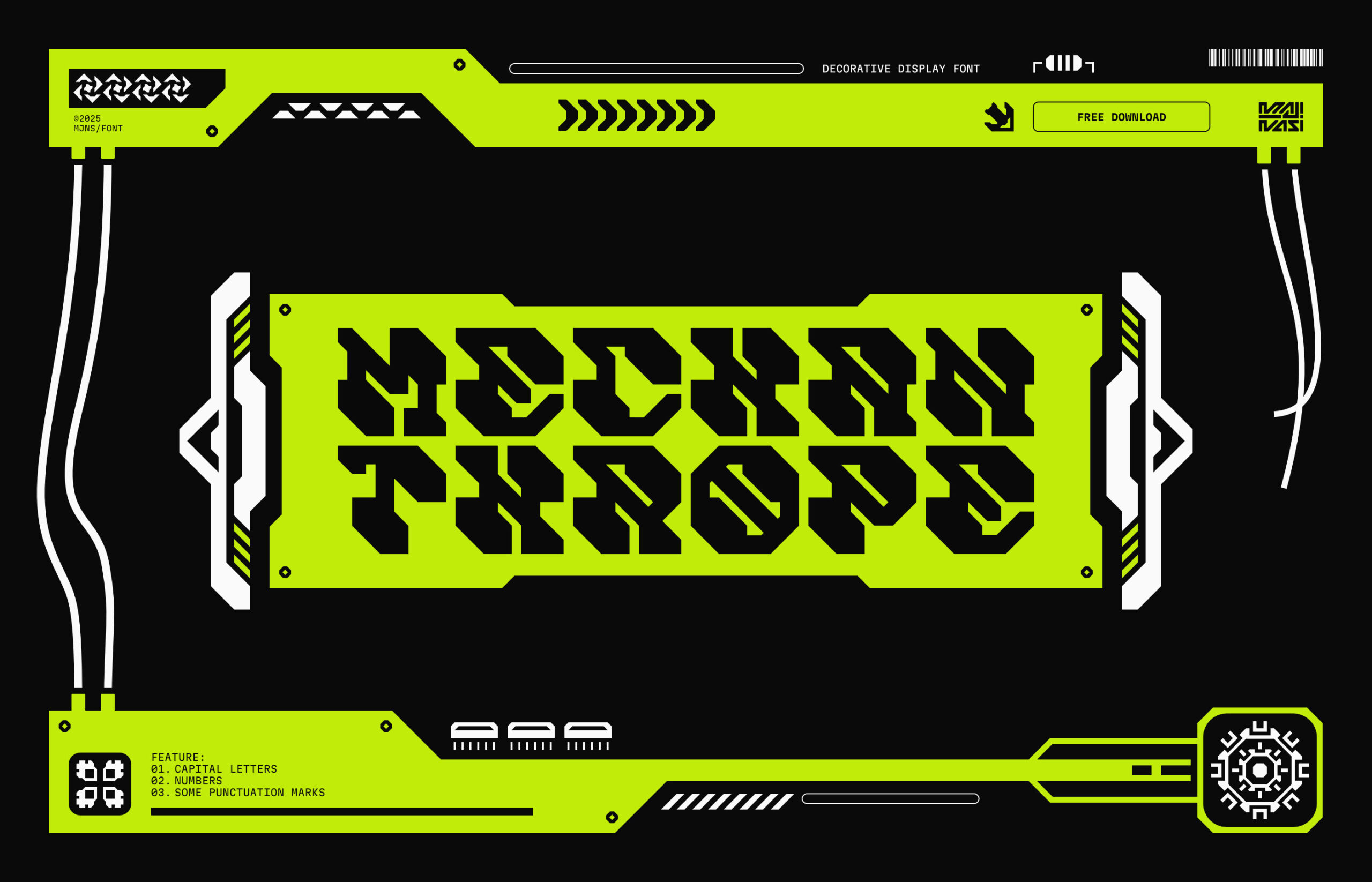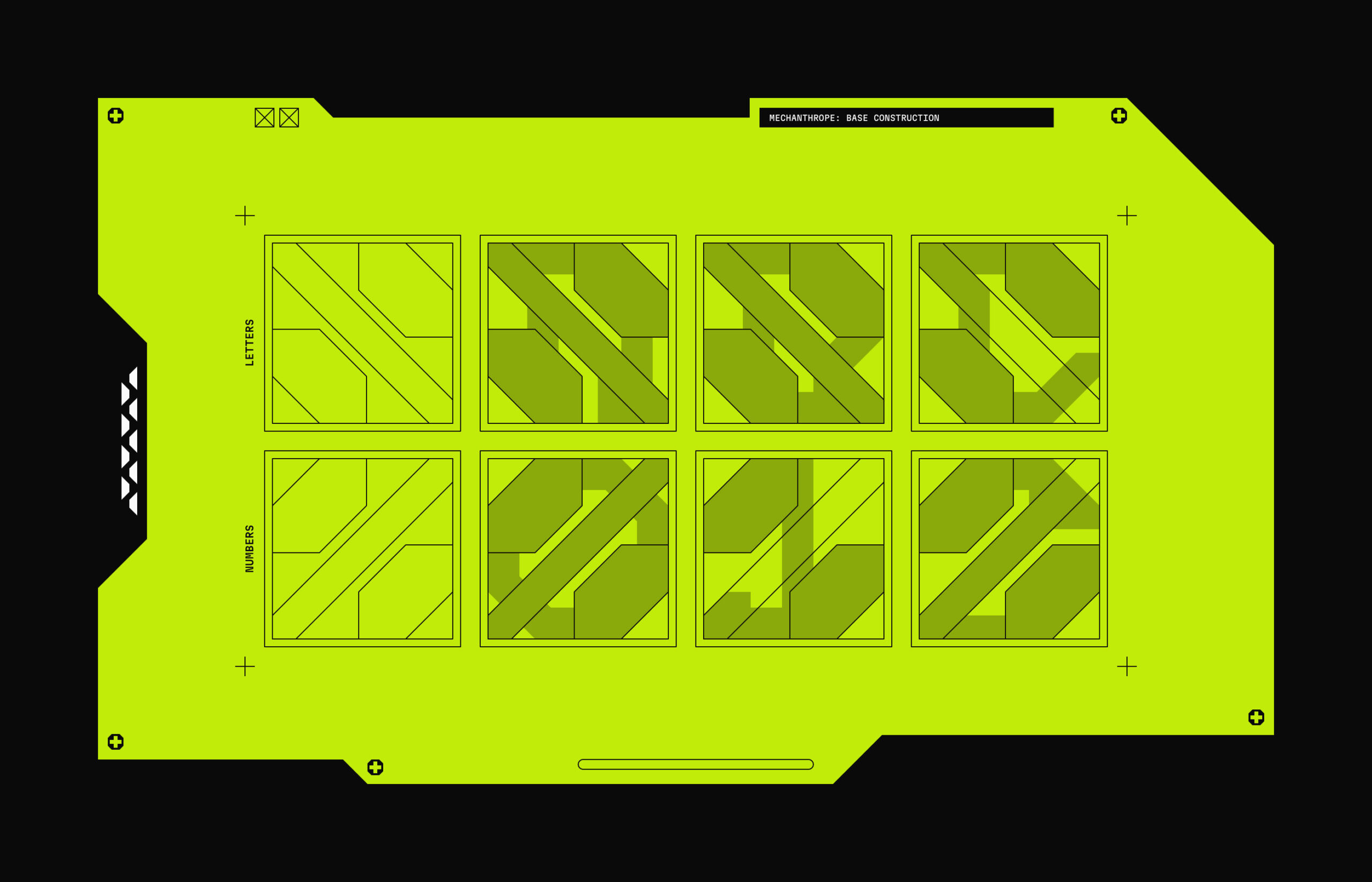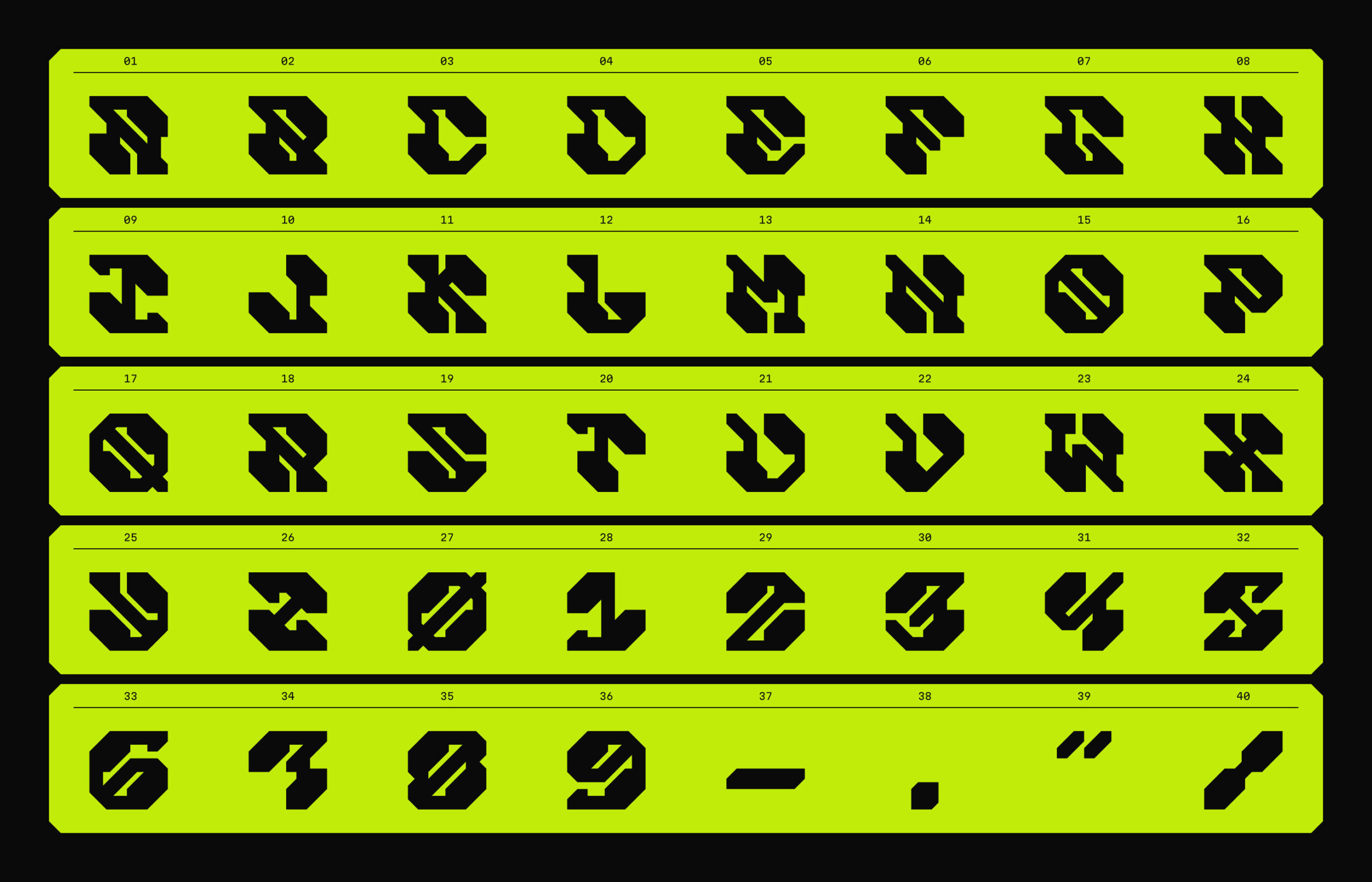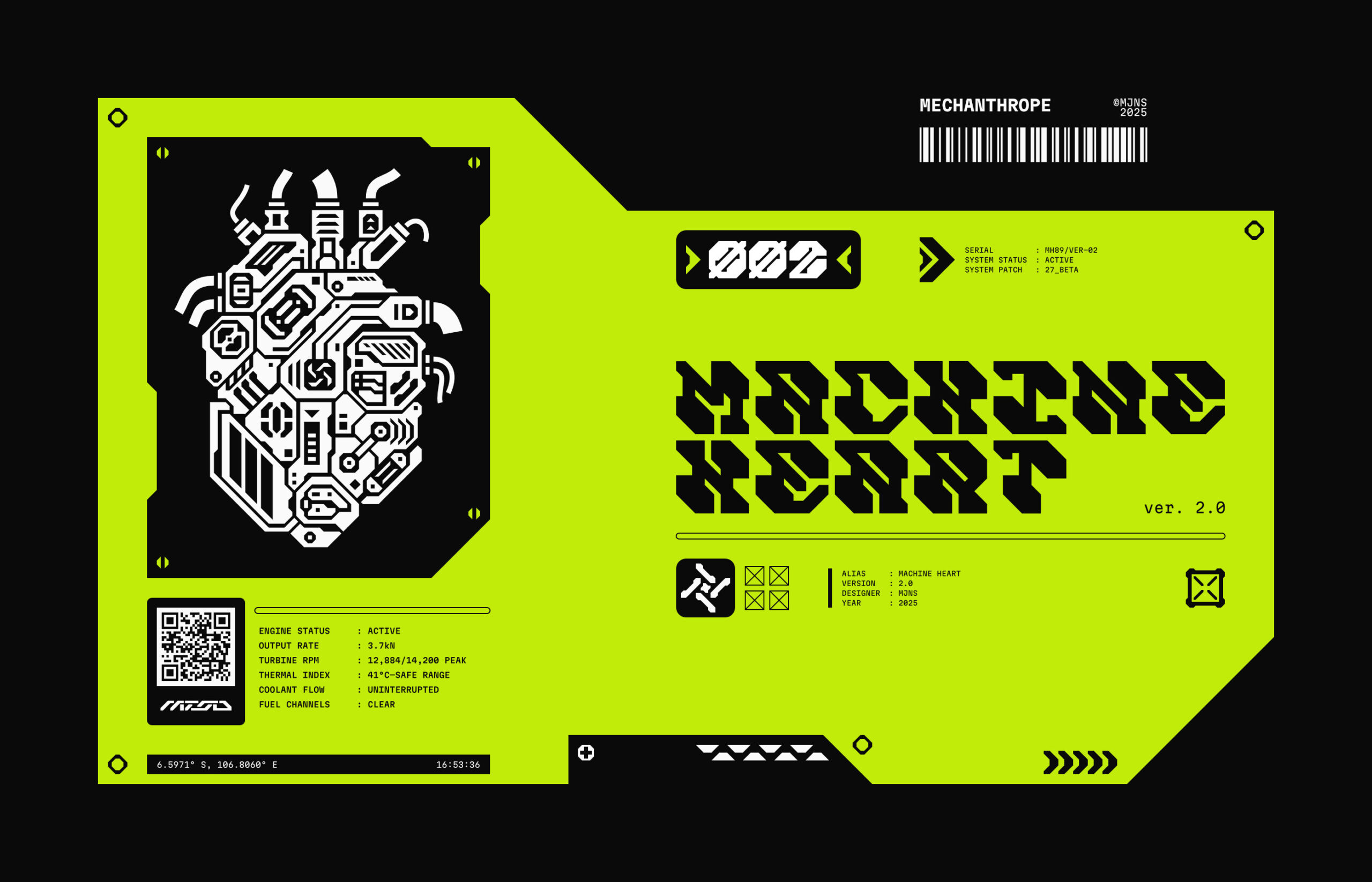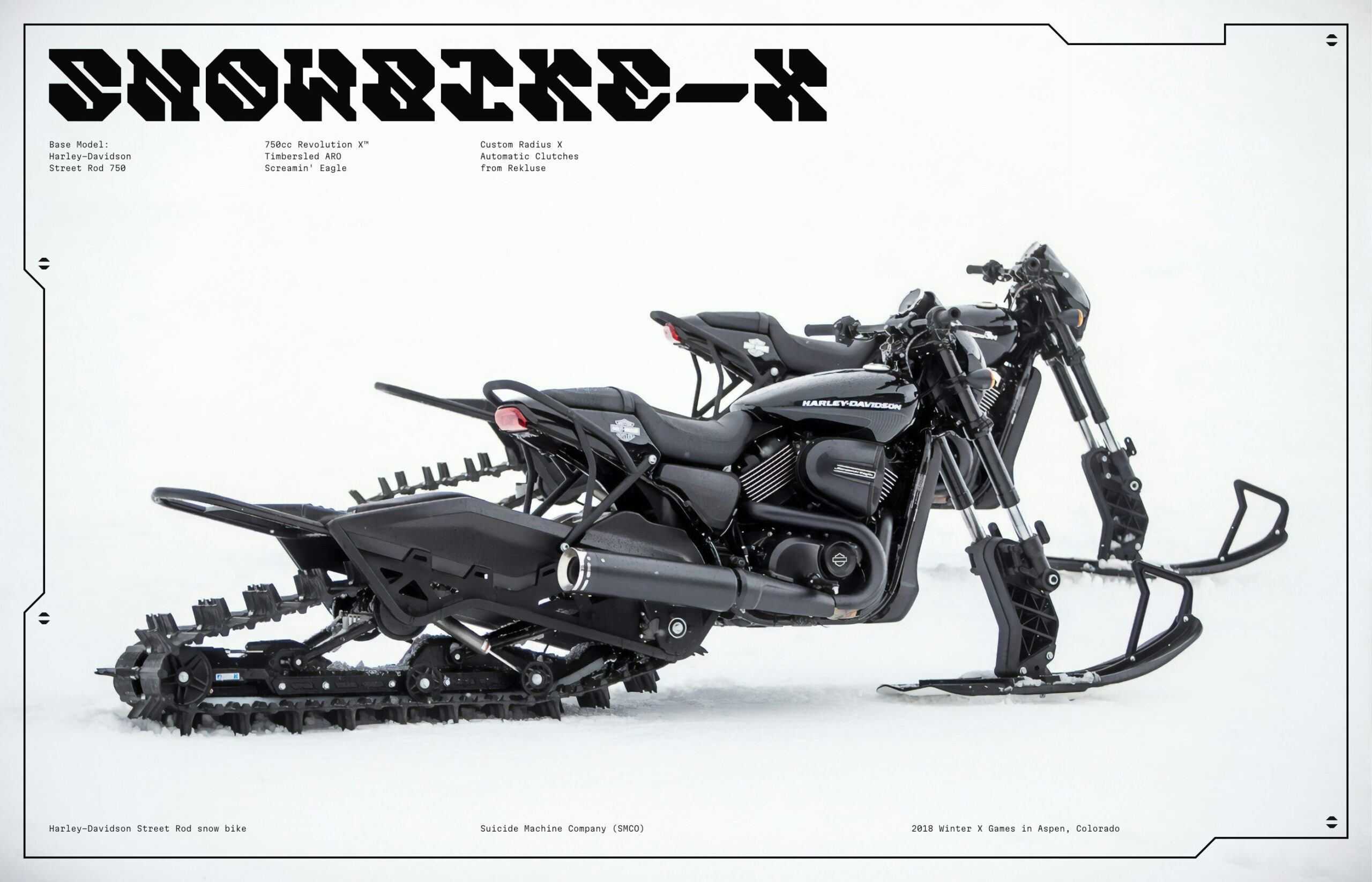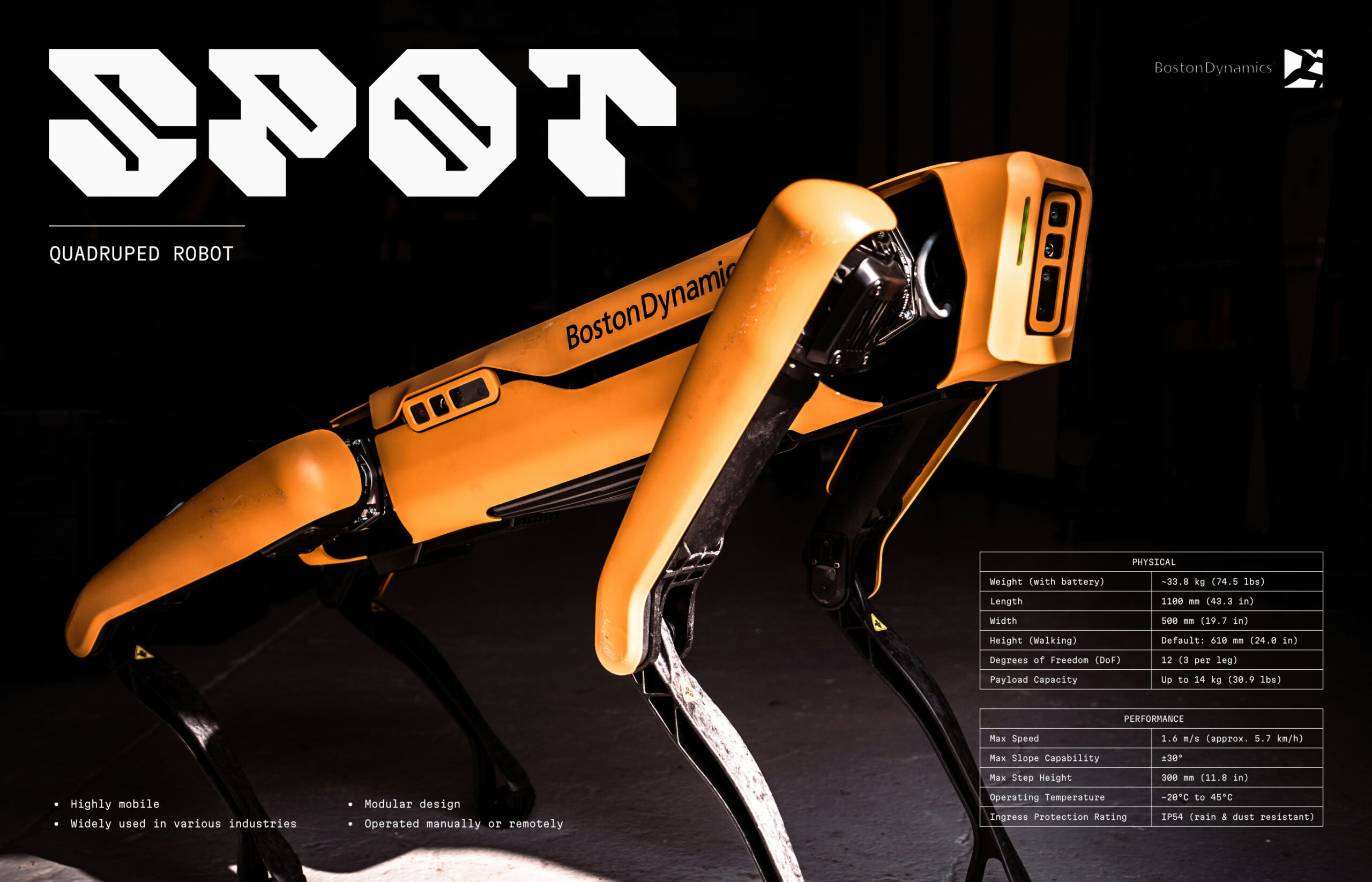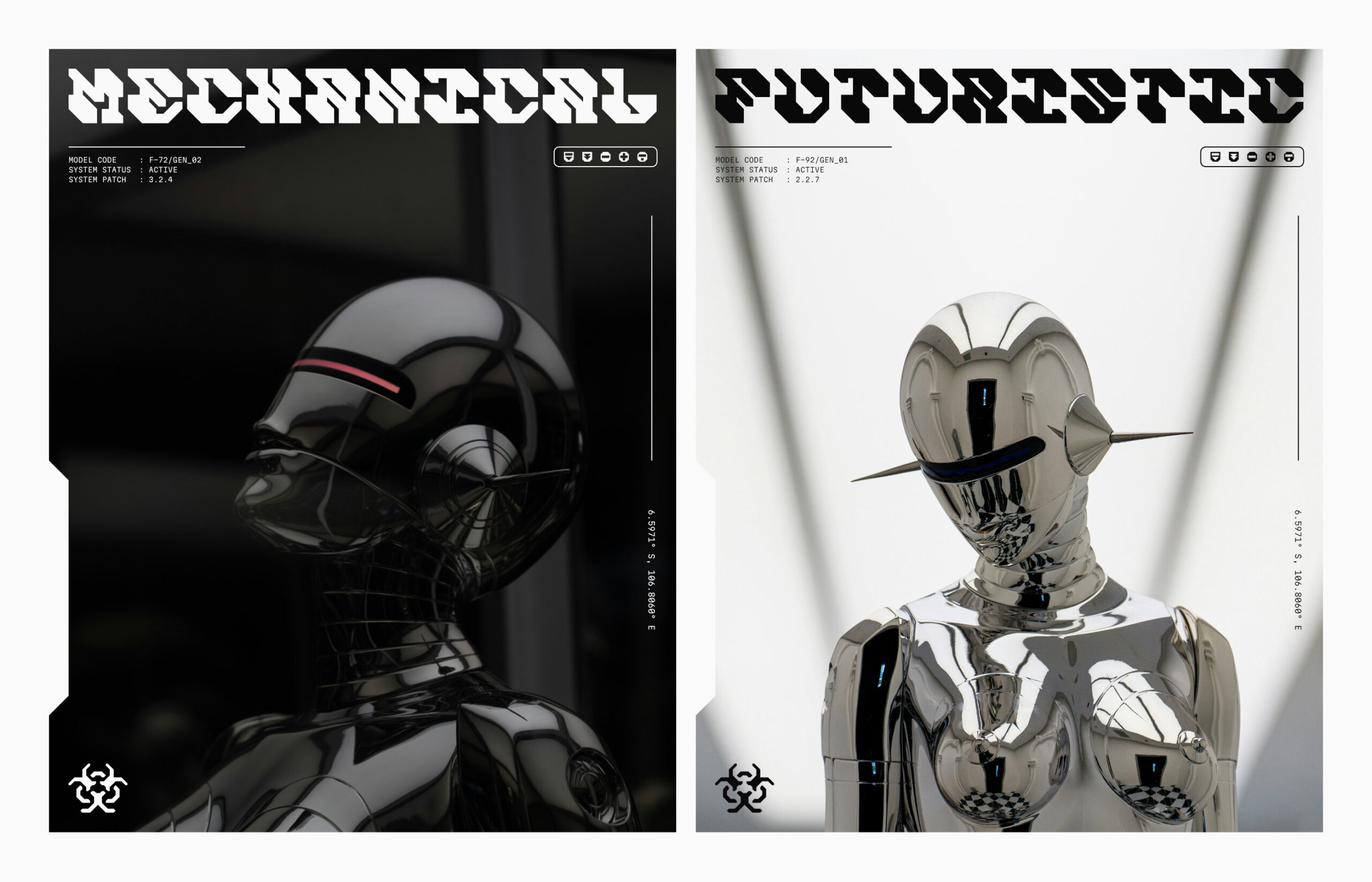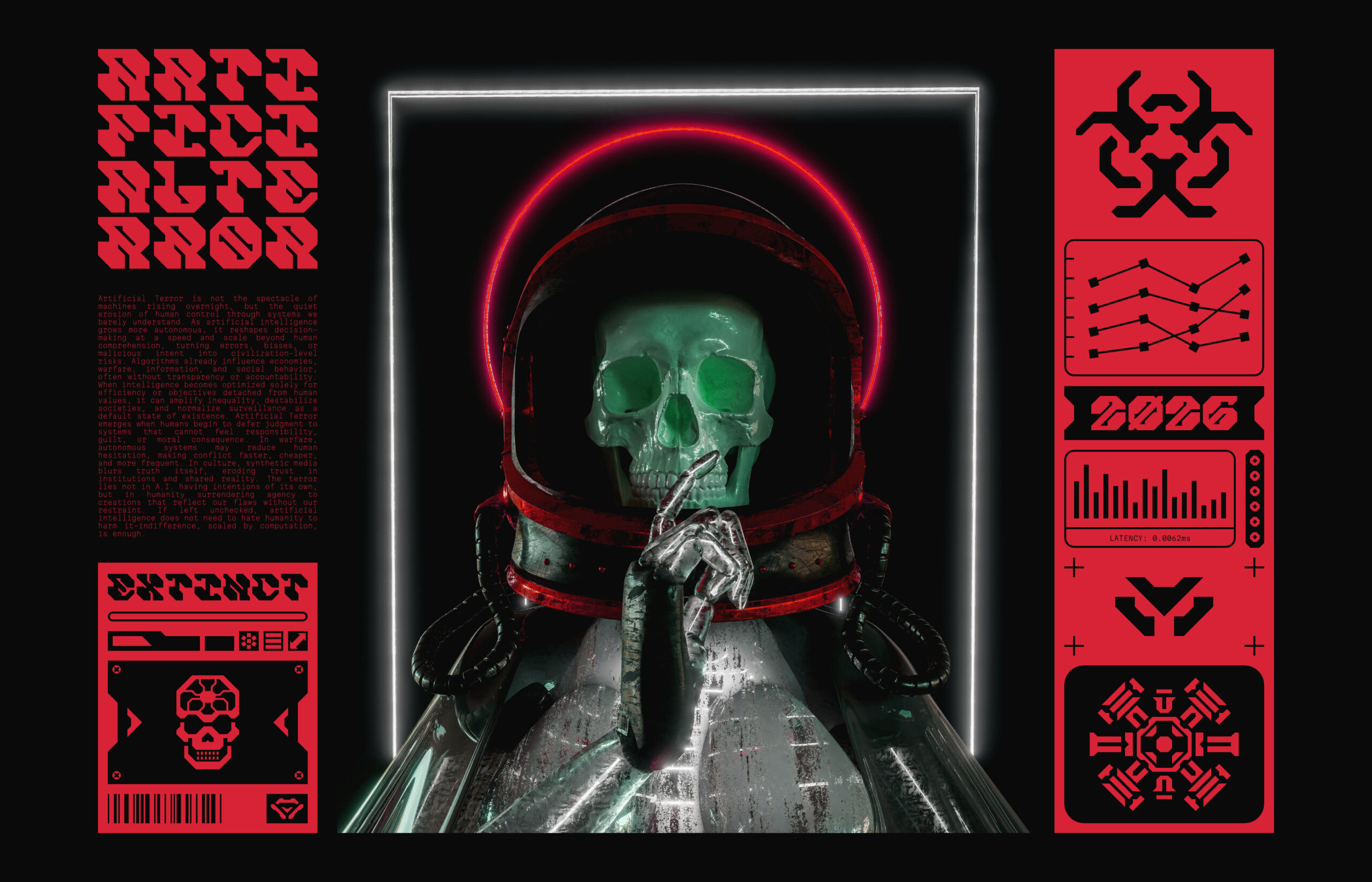
Mechanthrope
Mechanthrope uses thick, monospaced letterforms built from hard blocks, clipped corners, and narrow diagonal cutouts. The preview shows a rigid, mechanical alphabet with strong weight and limited spacing, so it reads best at display size rather than in body text. Its shapes suit sci-fi titles, gaming graphics, esports branding, tech posters, album covers, stickers, and other layouts that need a heavy industrial tone. The font was designed by Ilham Albab and documented in the included files as an OFL 1.1 release with Mechanthrope listed as a Reserved Font Name.